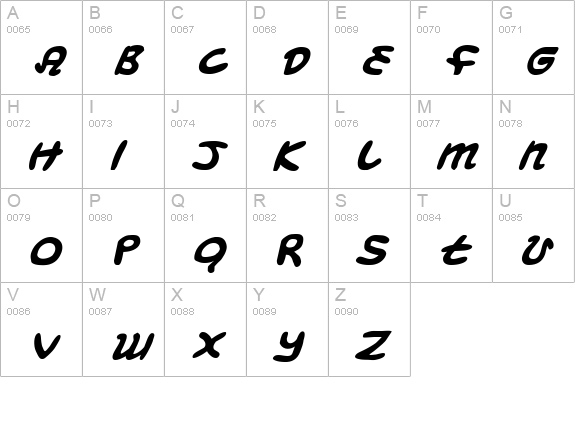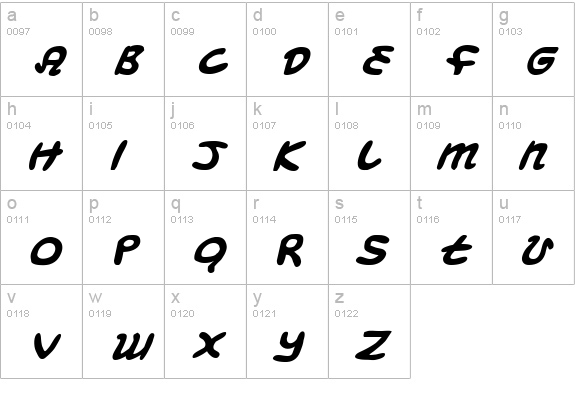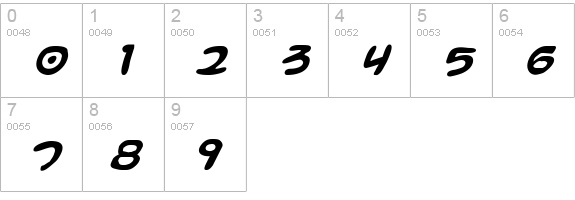
Magic Beans Italic Font Details
Magic Beans Italic is a distinctive, italic variant in the Magic typeface family \xE2\x80\x94 well suited to design and typography projects.
Magic Beans Italic font is a whimsical and enchanting typeface that will add a touch of magic to your designs. With its graceful curves and elegant slant, this font is perfect for creating eye-catching headers, titles, and invitations. The italic style of Magic Beans exudes a sense of sophistication and playfulness, making it ideal for projects that require a unique and artistic touch. The best part? Magic Beans Italic font is available for free download at FontsMarket.com. Simply visit the website and enjoy unlimited access to this stunning font for your personal and commercial projects. Let the magic of Magic Beans Italic font transform your designs into something truly extraordinary.